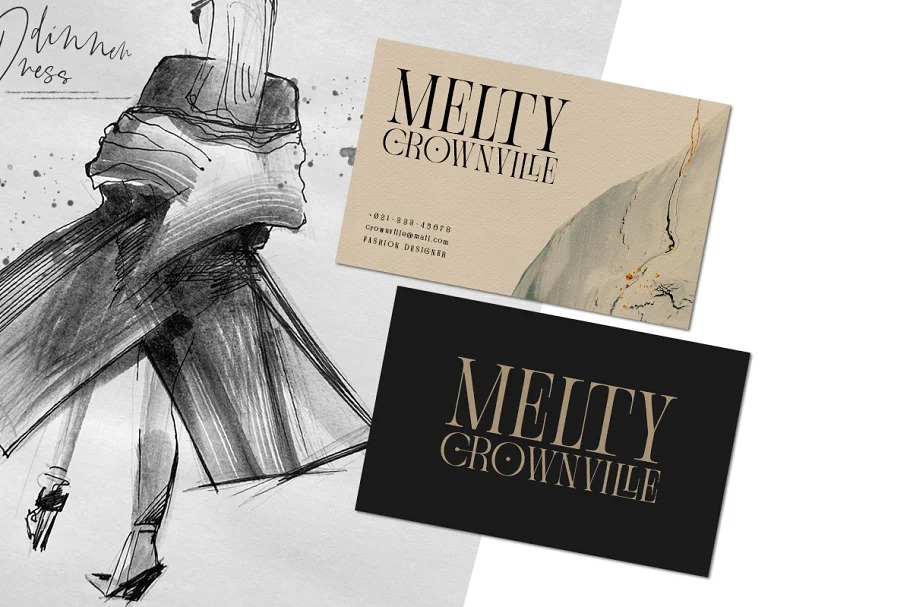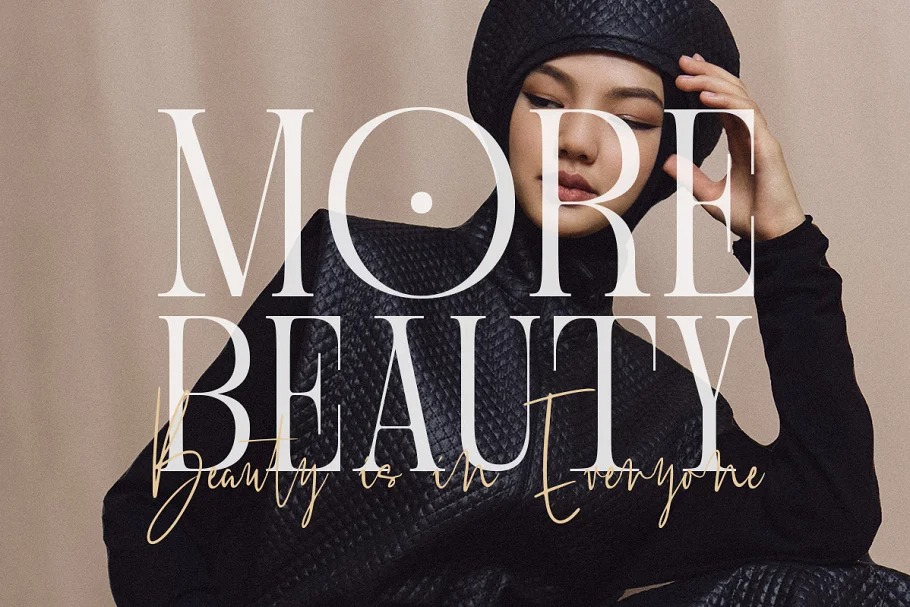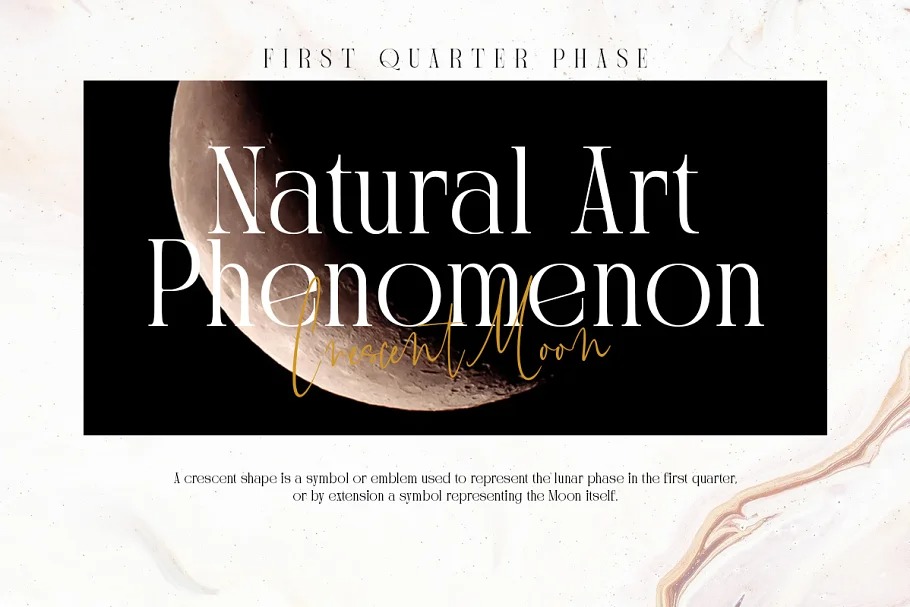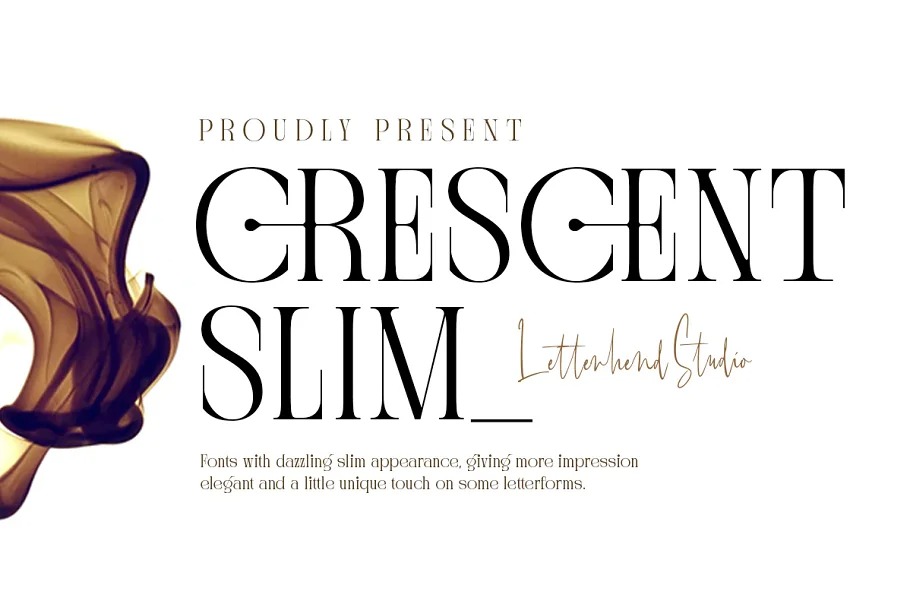
Crescent Slim Serif Font
This is a modern high-contrast sans serif typeface that balances visual interest with restraint. This typeface has been made carefully to make sure its premium quality and luxury feel. The ligatures makes this typeface unique and stands out rather than the regular serif font, very suitable for logo, headline, tittle, and the other various formal forms such as invitations, labels, logos, magazines, books, greeting / wedding cards, packaging, fashion, make up, stationery, novels, labels or any type of advertising purpose.